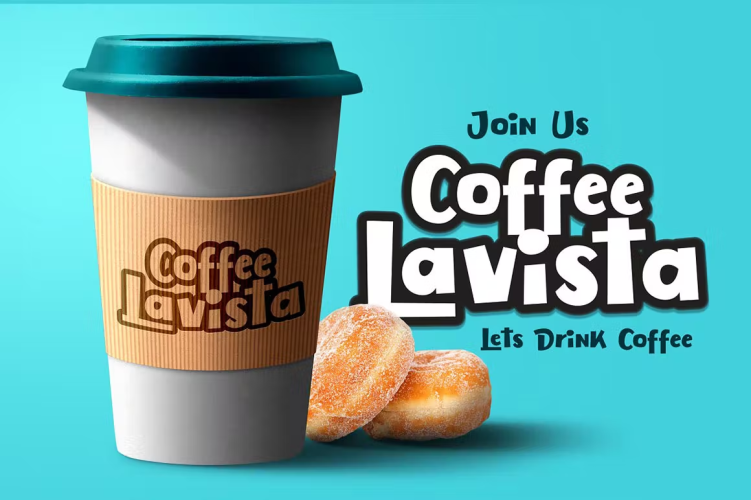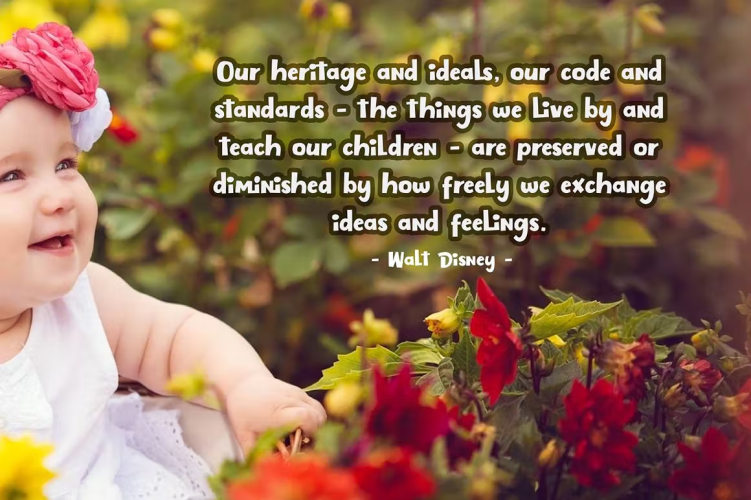
Comichate Font
Comichate is a beautiful comic font, This Font will look gorgeous on all your designs, invitation, book, branding materials, logo’s, t-shirt, poster and all project desi…
Comichate is a beautiful comic font, This Font will look gorgeous on all your designs, invitation, book, branding materials, logo’s, t-shirt, poster and all project design other.
Comichate* contains standard characters, lowercase, lowercase alternates & Uppercase, numbers, punctuation, ligatures and international glyphs.You will receive OTF, TTF files.
Where Comichate Font works best
Seasonal campaigns
Comichate Font gives a holiday or themed promotion its own look without redrawing anything; use it for the headline only.
Party and family invitations
Decorative letters set the mood before the text is read. Pair Comichate Font with a plain sans for the practical details.
Game and video titles
Themed lettering sells the world of a game or a channel in one frame.
What kind of work does Comichate Font suit?
It sits in the Decorative Fonts group and reads as branding, decorative, decorative fonts, kids. That makes it a candidate wherever those qualities help: headings, packaging, social graphics and brand work. Set it at the size you plan to use before deciding.